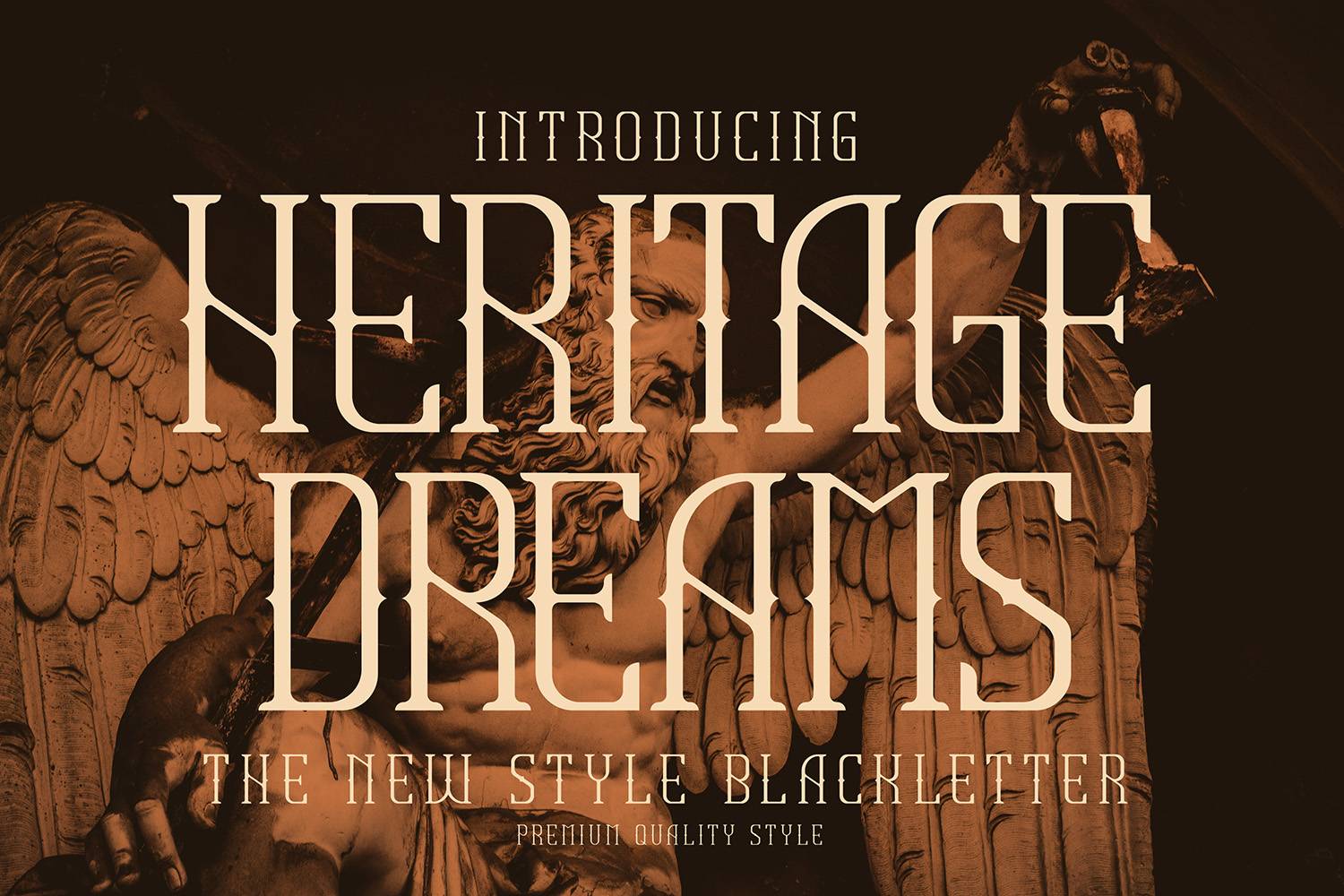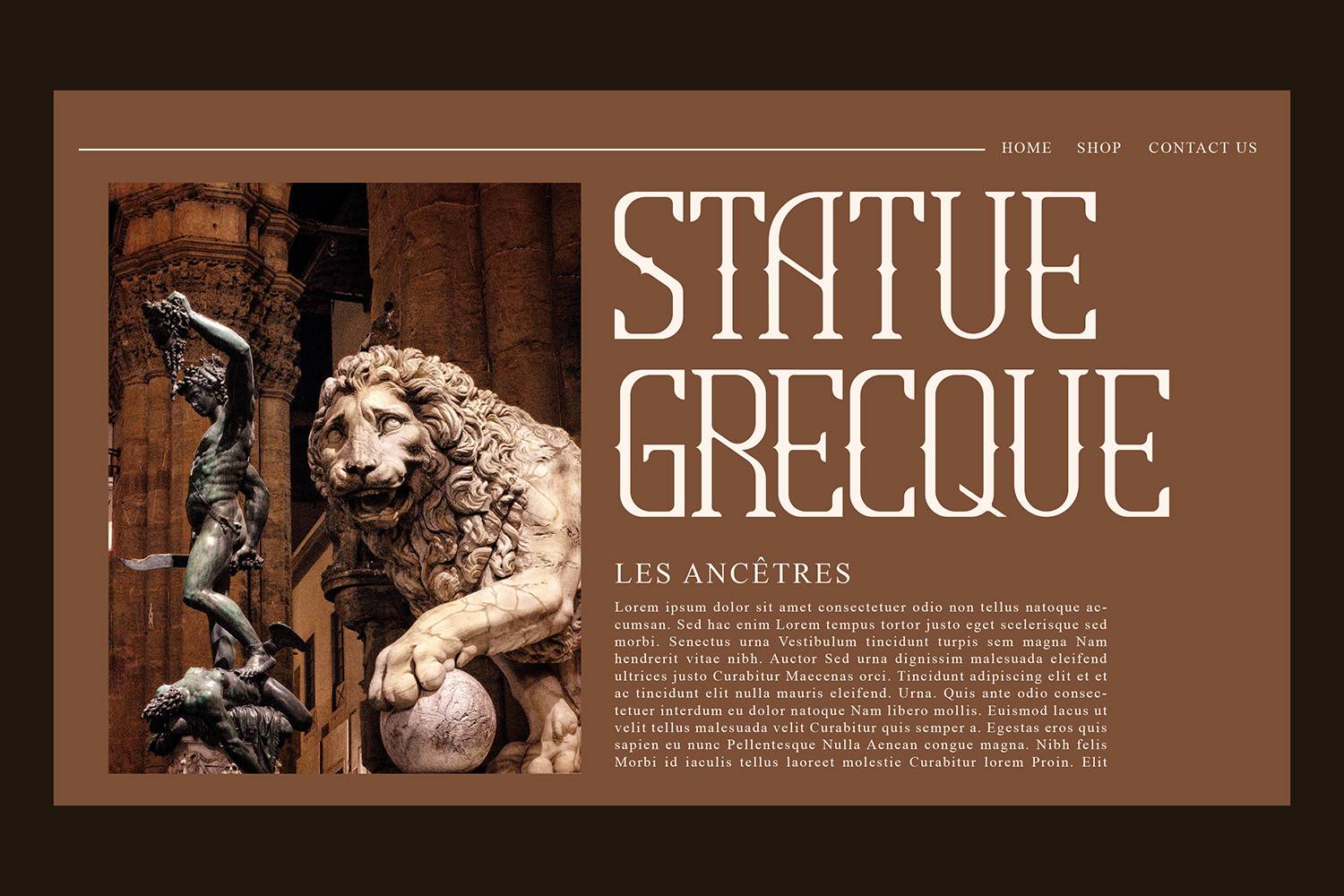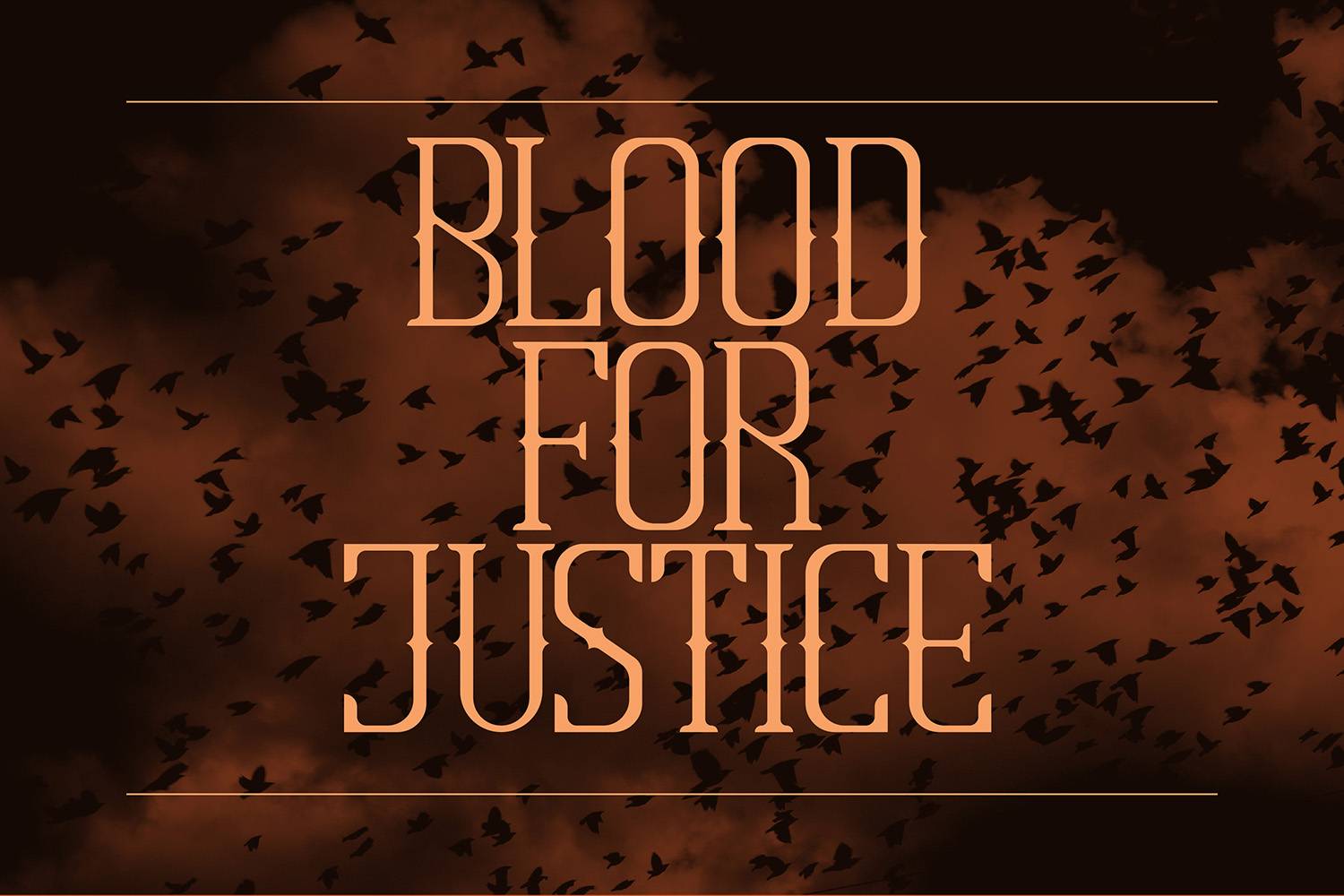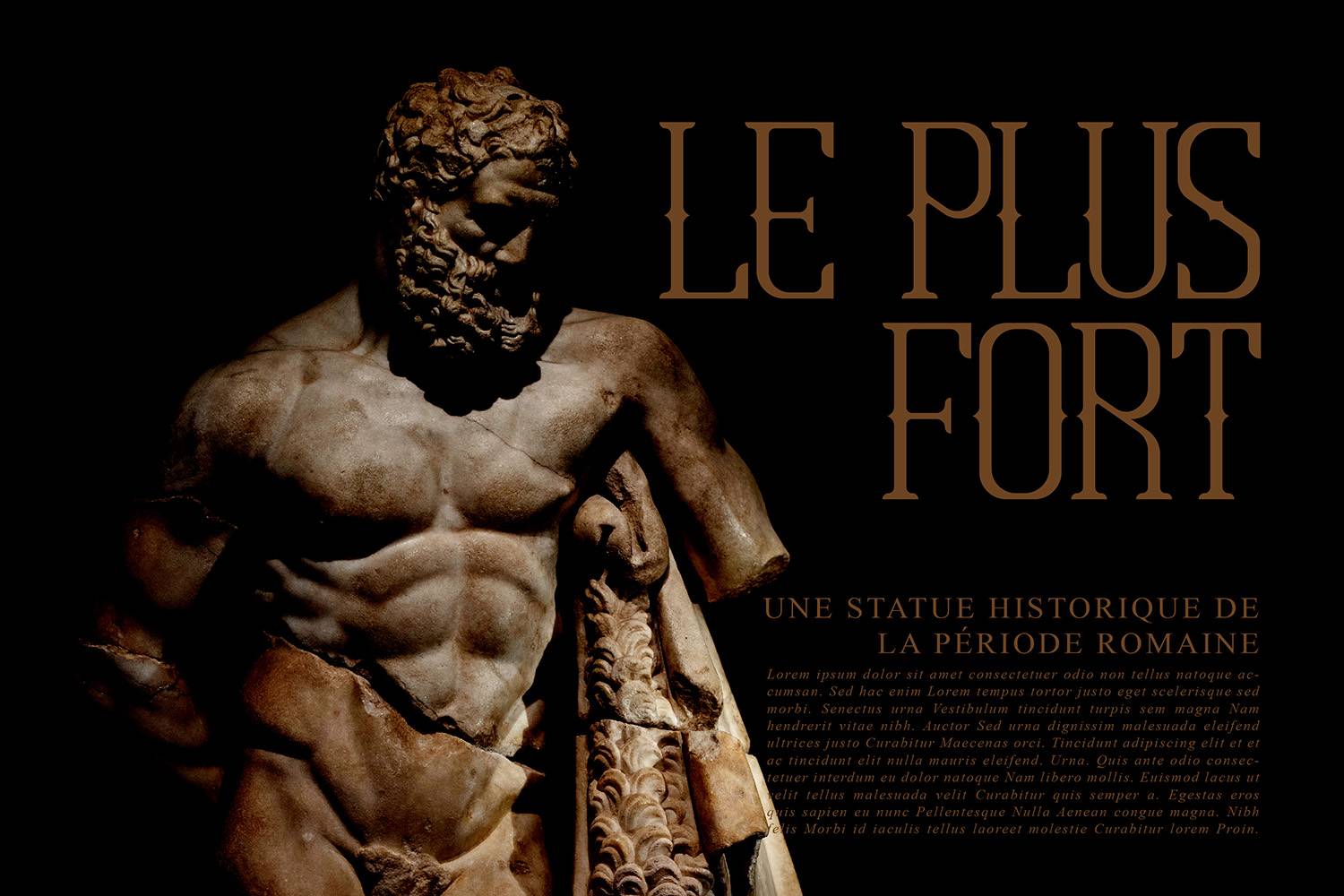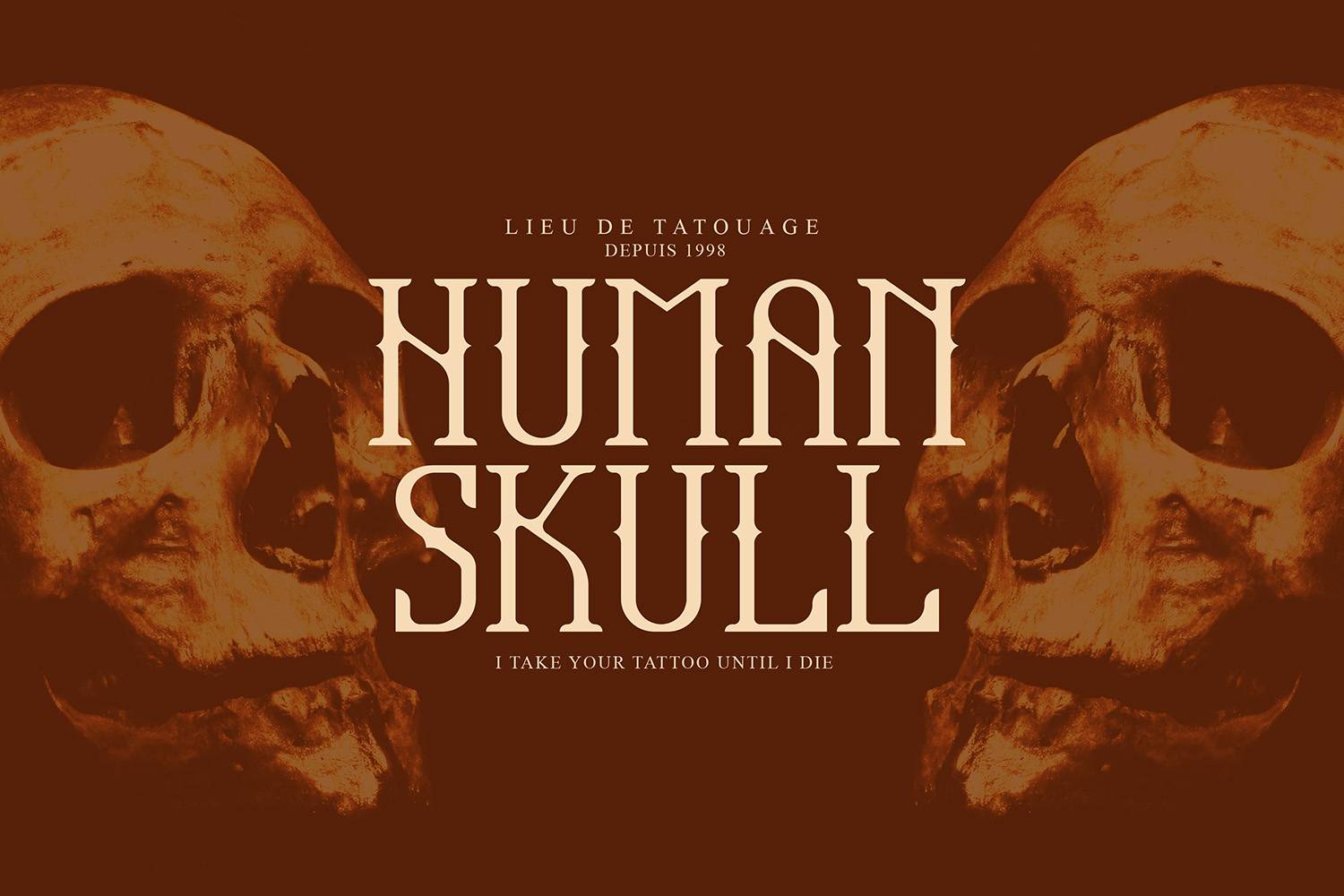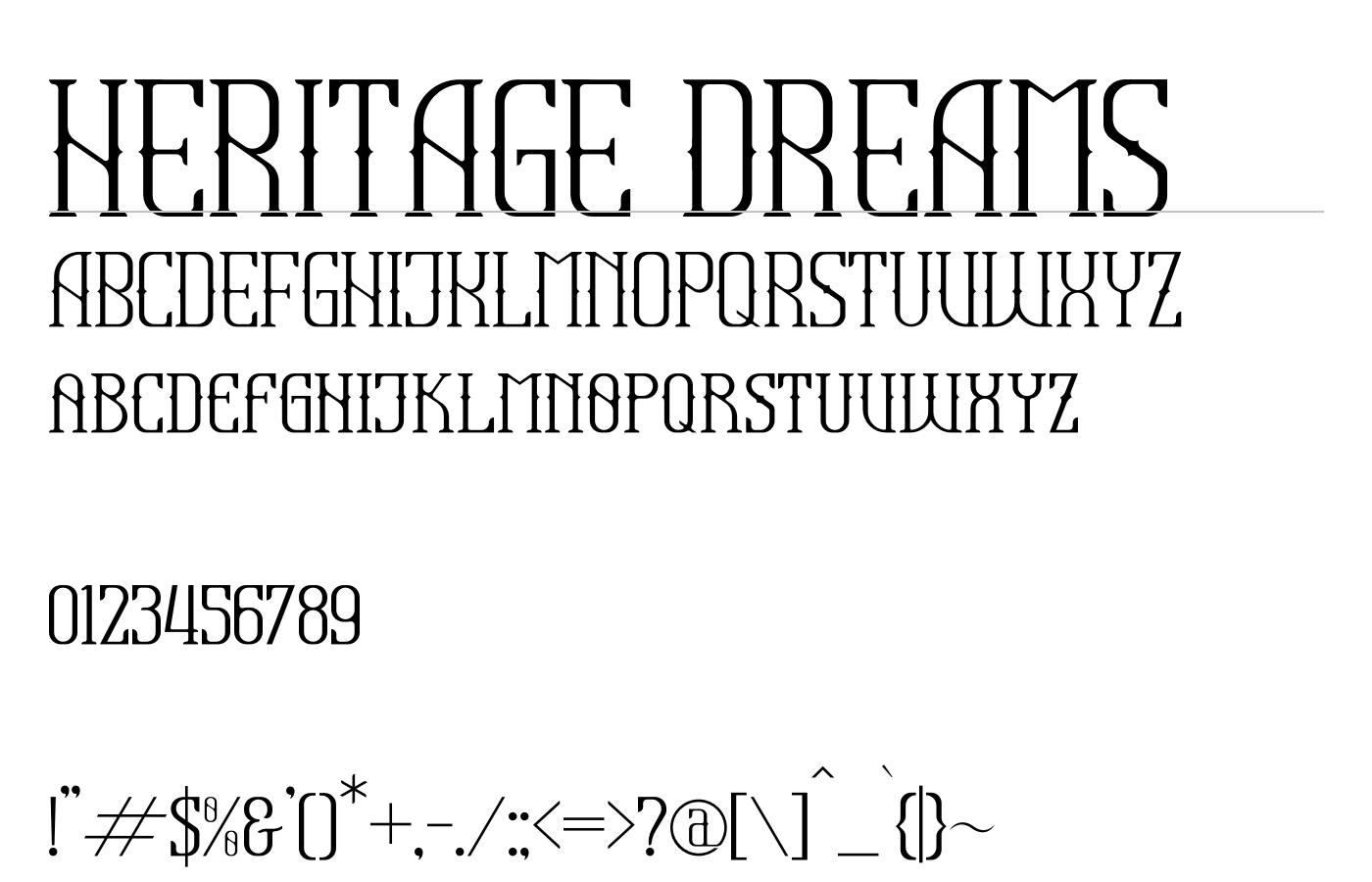
Heritage Dreams is a distinctive serif font characterized by its tall, narrow letterforms and refined, modern elegance. With high contrast between thick and thin strokes and subtle, bracketed serifs, it evokes a sophisticated vintage charm perfect for luxury branding, editorial headlines, and stylish packaging. Its unique, condensed shapes and sharp details make it ideal for projects seeking a refined, artistic touch with a hint of heritage.
Heritage Dreams Font
About Heritage Dreams Font